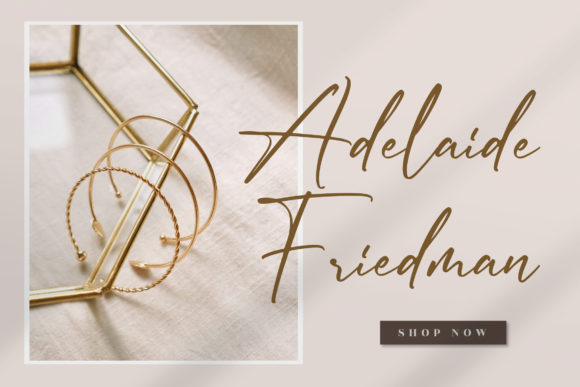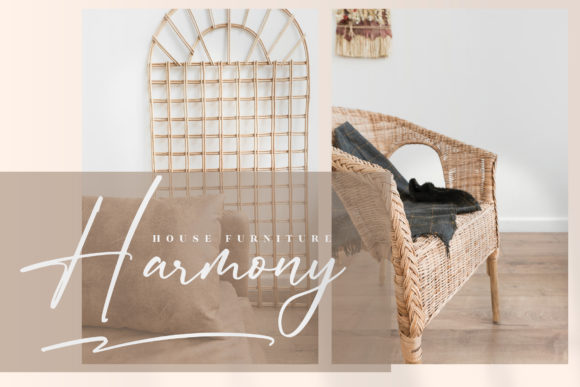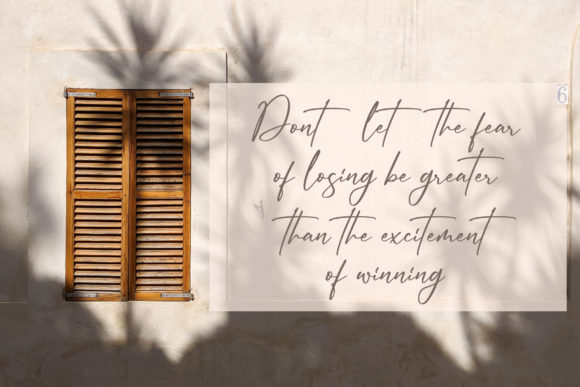
The Magic of Andershon Magnolia Font: A Designer’s New Best Friend
I’ll never forget the time I was working on a project for a client who wanted a font that was both elegant and modern. I had spent hours scouring the internet, trying out different fonts, but nothing seemed quite right. That was until I stumbled upon Andershon Magnolia. It was love at first sight! 💕 This exquisite handwritten font has become a true favorite of mine, and I’m excited to share its magic with you.
- ✅ Classy calligraphic influences that add a touch of sophistication to any project
- ✅ A contemporary and fresh feel that makes it perfect for modern designs
- ✅ Beautifully crafted to evoke a sense of elegance and refinement
- ⚠️ Some users may find the font a bit too ornate for very casual or playful projects
- ⚠️ As with any script font, it may not be the best choice for very long blocks of text
The Story Behind Andershon Magnolia
Andershon Magnolia was designed by a talented type designer who wanted to create a font that was both elegant and modern. The font’s name is inspired by the beautiful magnolia flowers that bloom in the southern United States. The designer’s goal was to capture the essence of these flowers in a font that would be perfect for a variety of creative projects.
Q: What is Andershon Magnolia font?
A: Andershon Magnolia is a beautiful, handwritten font that combines classy calligraphic influences with a modern feel.
Q: Is Andershon Magnolia suitable for body text?
A: While Andershon Magnolia is highly legible, it’s best suited for headings, titles, and short blocks of text. For longer blocks of text, a serif font may be more suitable.
Q: Is Andershon Magnolia available in different weights or styles?
A: Yes, Andershon Magnolia comes in a range of weights and styles, including regular, bold, and italic.